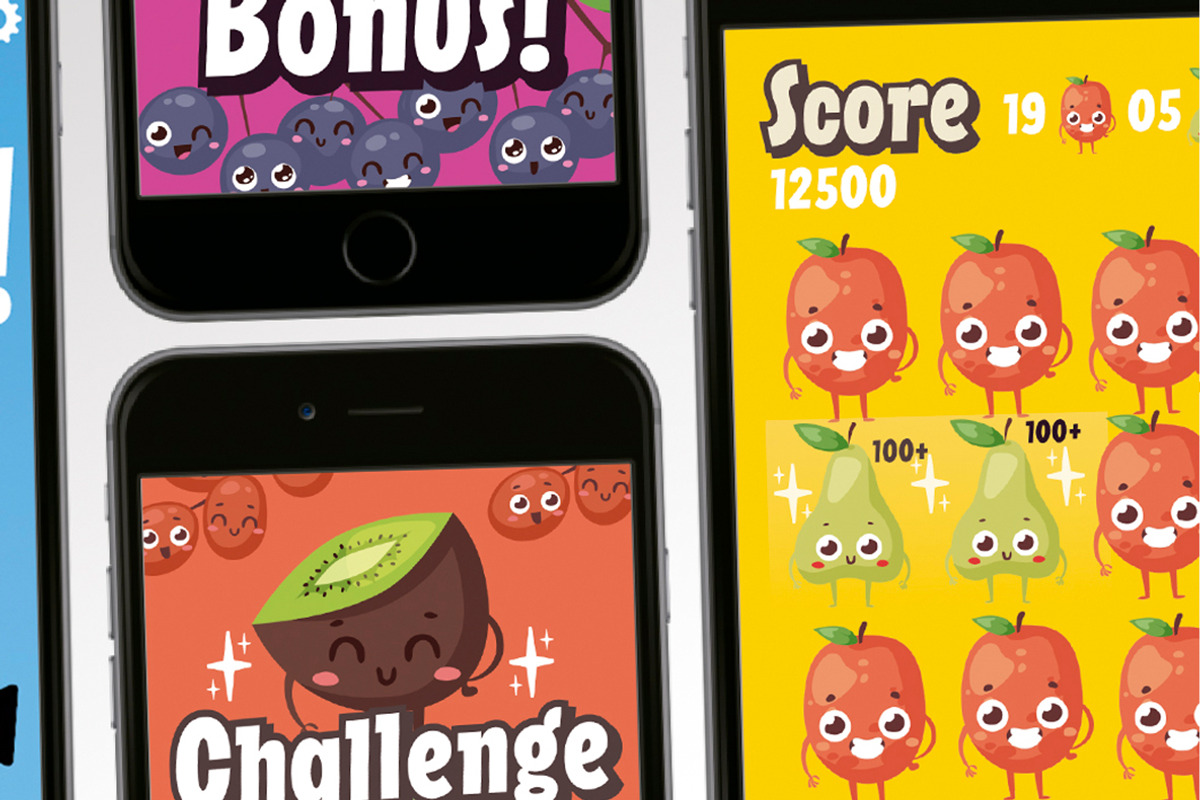
Squick Year: 2018 Author: Rodrigo Araya, Franco Jonas, Andrey Kudryavtsev.** -- Concept: Squick - A Typography Sans, Dinamica with many alternatives from weights (Thin, Light, Normal, Regular, Medium, Bold, Extrabold, Black, Dense) Ligatures, Dingbat, Shadow, special for Children titles- Youth. Instagram https://www.instagram.com/rodrigotyp0/ Fanpage: https://www.facebook.com/RodrigoTypo?ref=hl Web: http://www.rodrigotypo.com